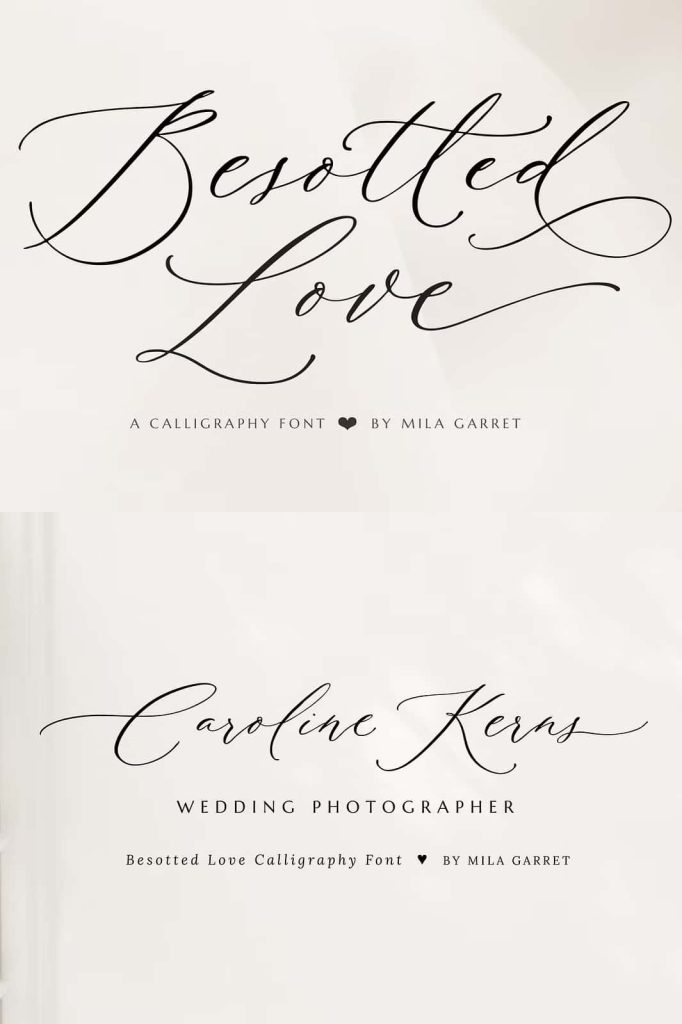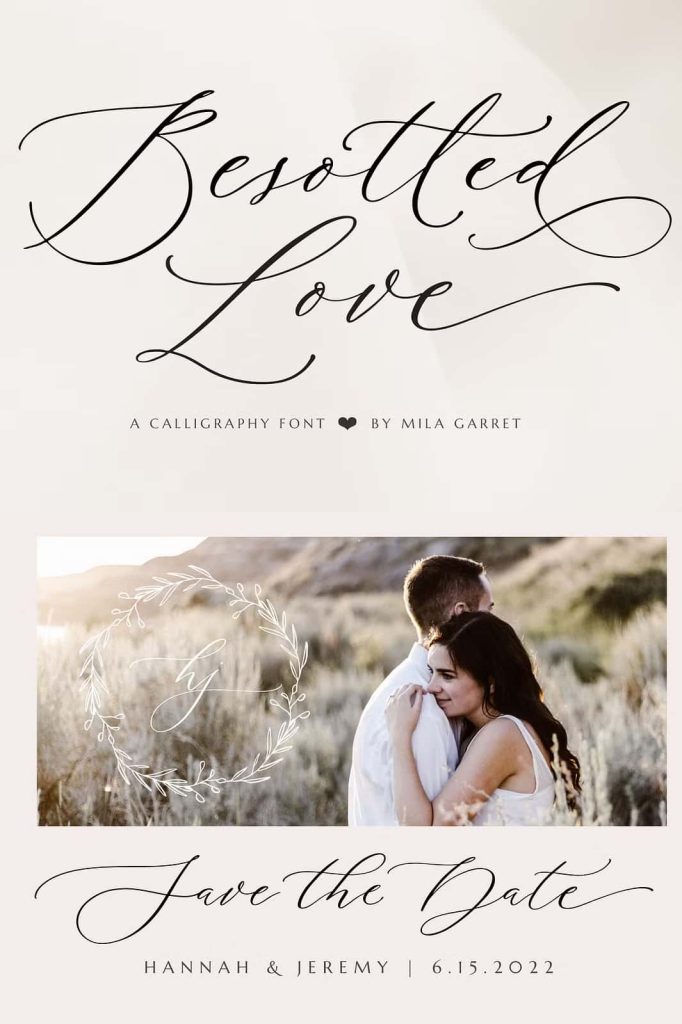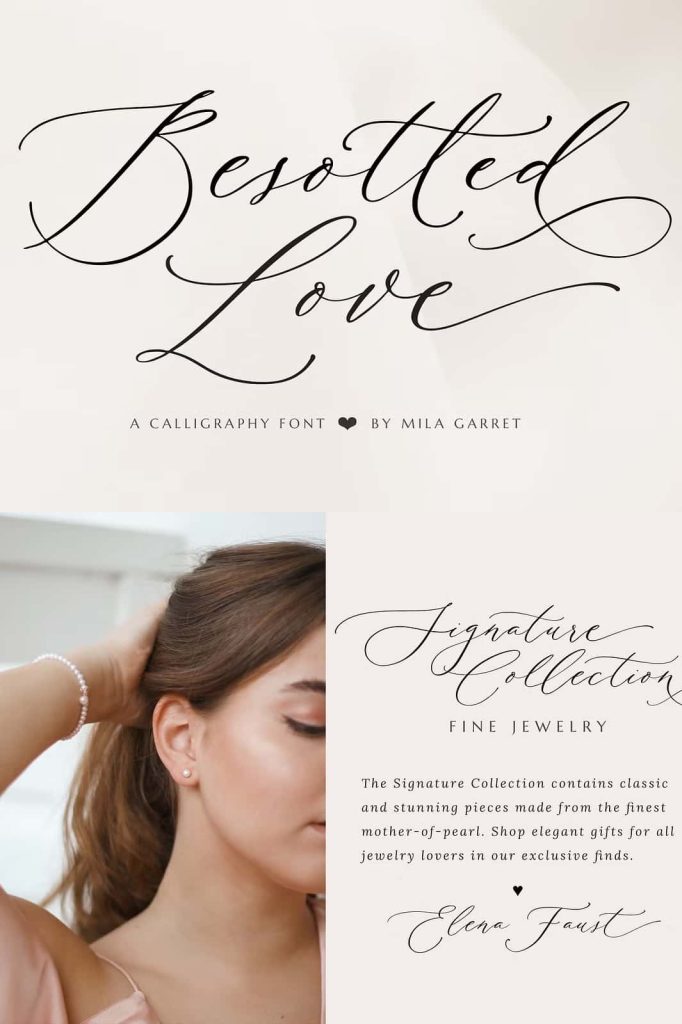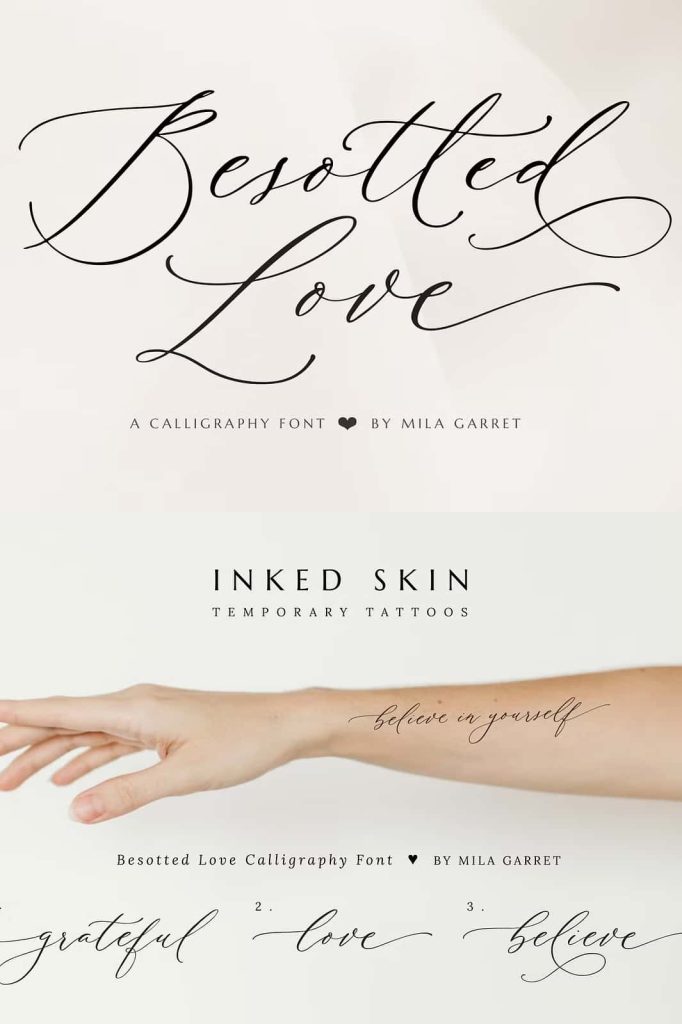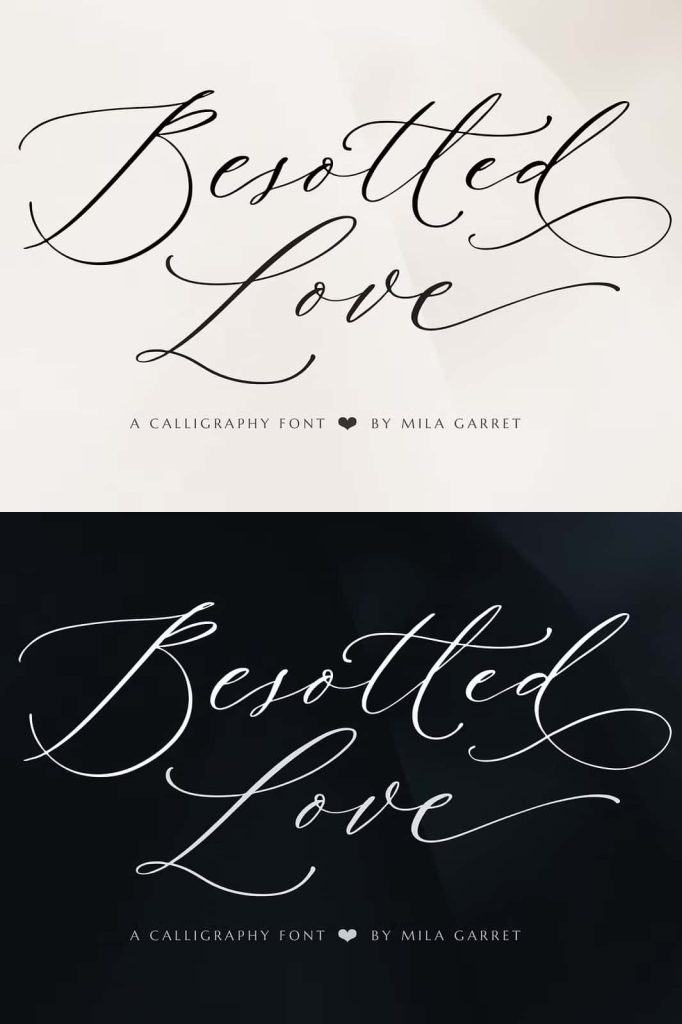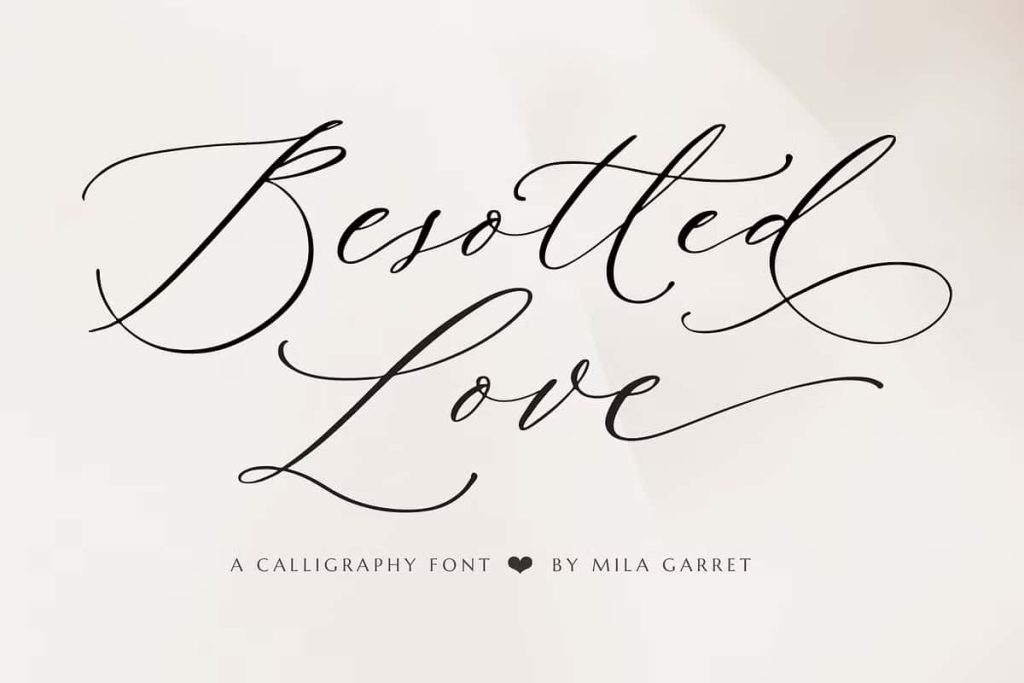
Besotted Wedding Calligraphy FontdezzignerJuly 21, 2024Fonts Meet Besotted Love, a luxurious wedding calligraphy font perfect for elegant logos, wedding stationery Download